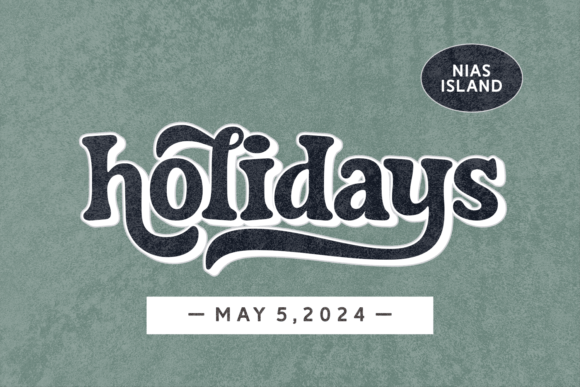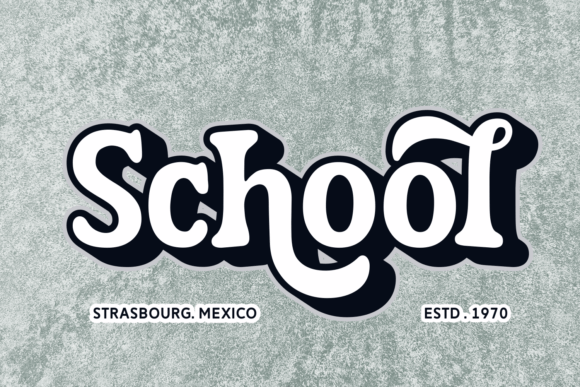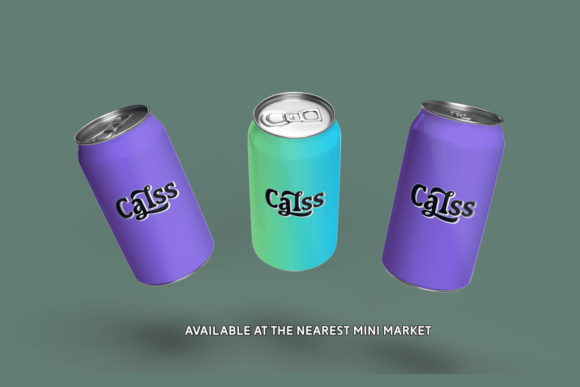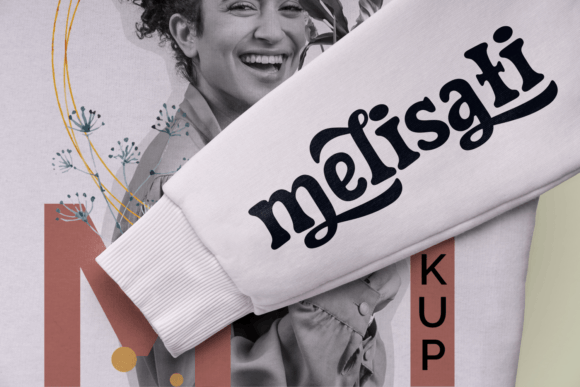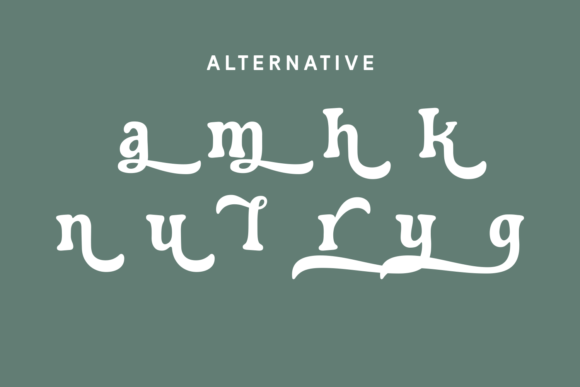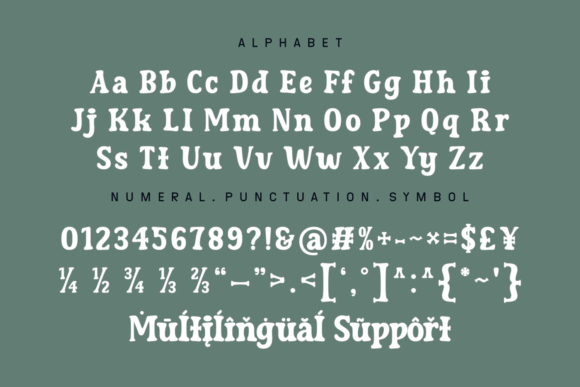
Introduction to Miracle Groovy Font
Remember the moment when you stumbled upon the perfect font for your creative project? The one that made your design stand out from the crowd and left you feeling like a true artist? For me, that moment came when I discovered the Miracle Groovy Font. This retro-inspired display font is a true masterpiece, transporting you back to the groovy decade of the 70s with its vintage charm.
Key Features of Miracle Groovy Font
- High-quality, unique design with a groovy vibe, perfect for creative projects and design resources.
Honest Review: Miracle Groovy Font
I recently stumbled upon the Miracle Groovy Font and I’m excited to share my honest review. As a designer, I’m always on the lookout for high-quality design resources that can elevate my creative projects.
What works well with this font is its playful and quirky vibe. The Miracle Groovy Font is perfect for adding a touch of whimsy to your designs, making it ideal for projects like social media graphics, posters, and flyers.
- ✨ High-quality design: The Miracle Groovy Font has a clear and crisp design that makes it perfect for printing.
However, I did notice a few limitations with the Miracle Groovy Font. It’s not suitable for formal or professional projects, and the font family is relatively small.
Overall, I’m impressed with the Miracle Groovy Font and would definitely recommend it for creative projects that require a fun and playful touch. Just keep in mind its limitations and use it wisely.
Miracle Groovy Font is ideal for creative projects, such as:
- Branding